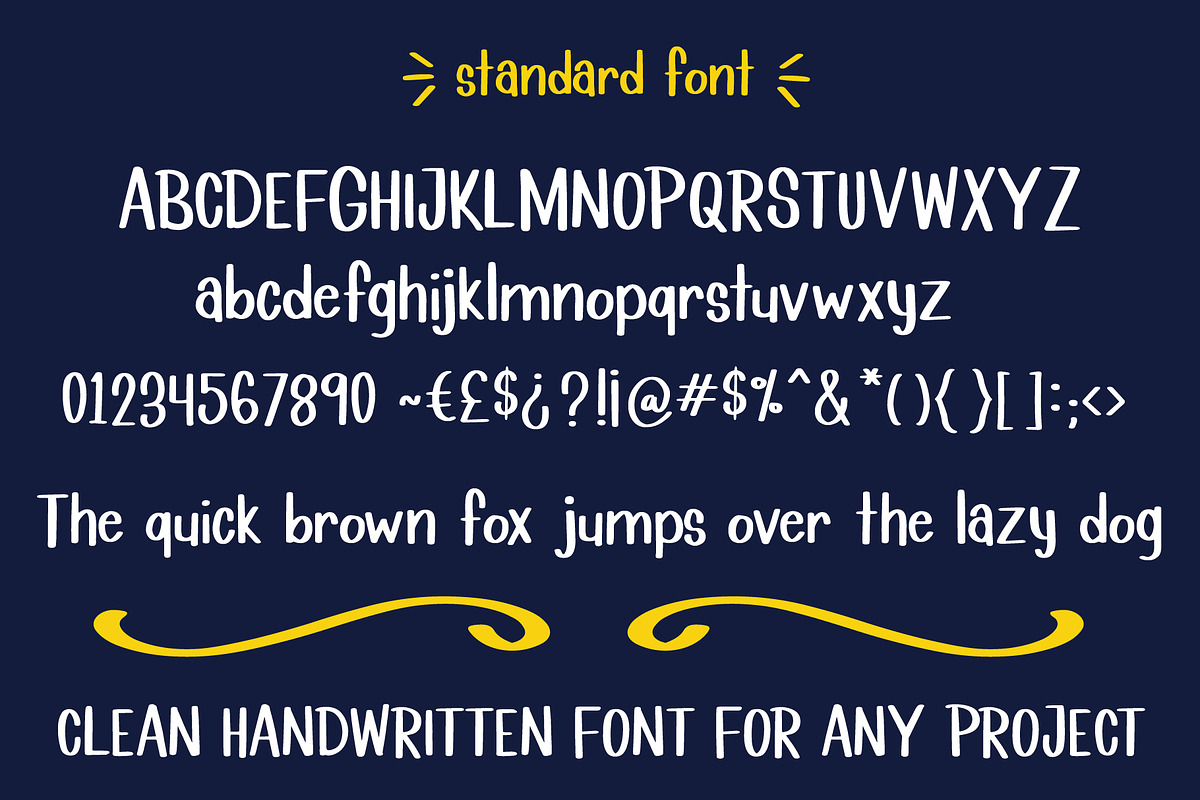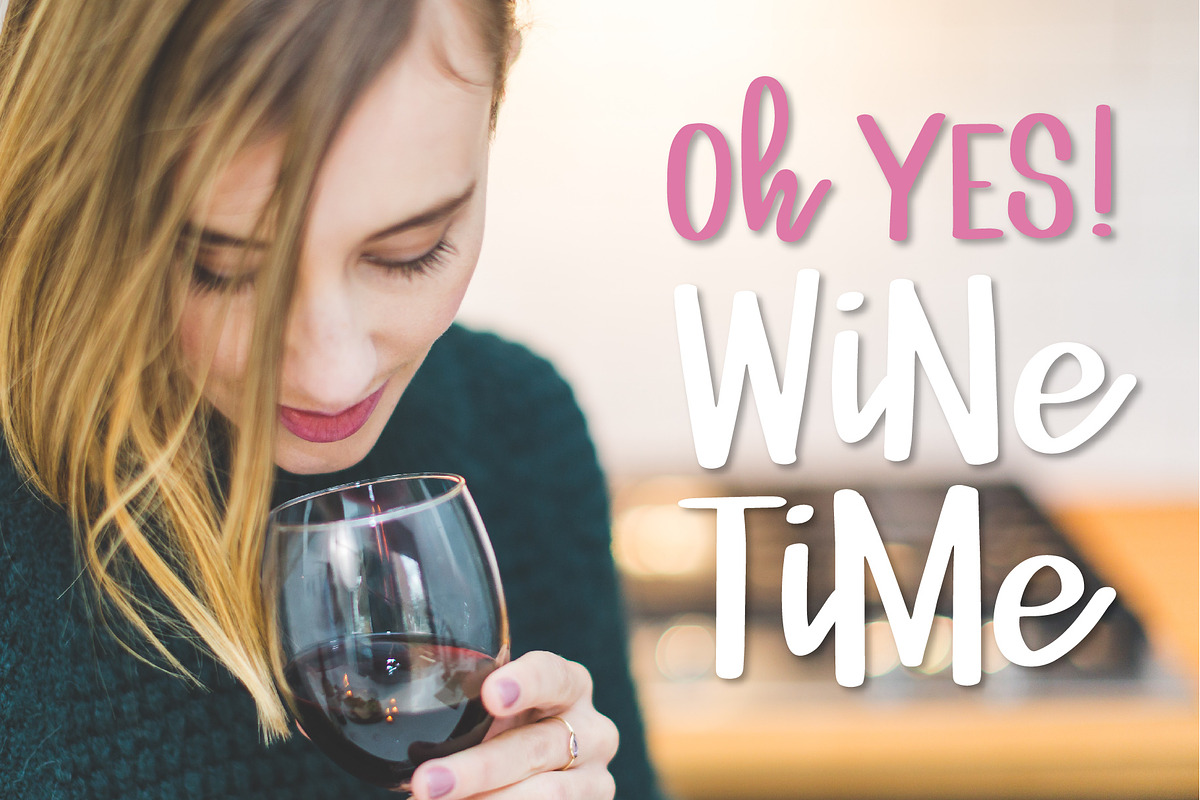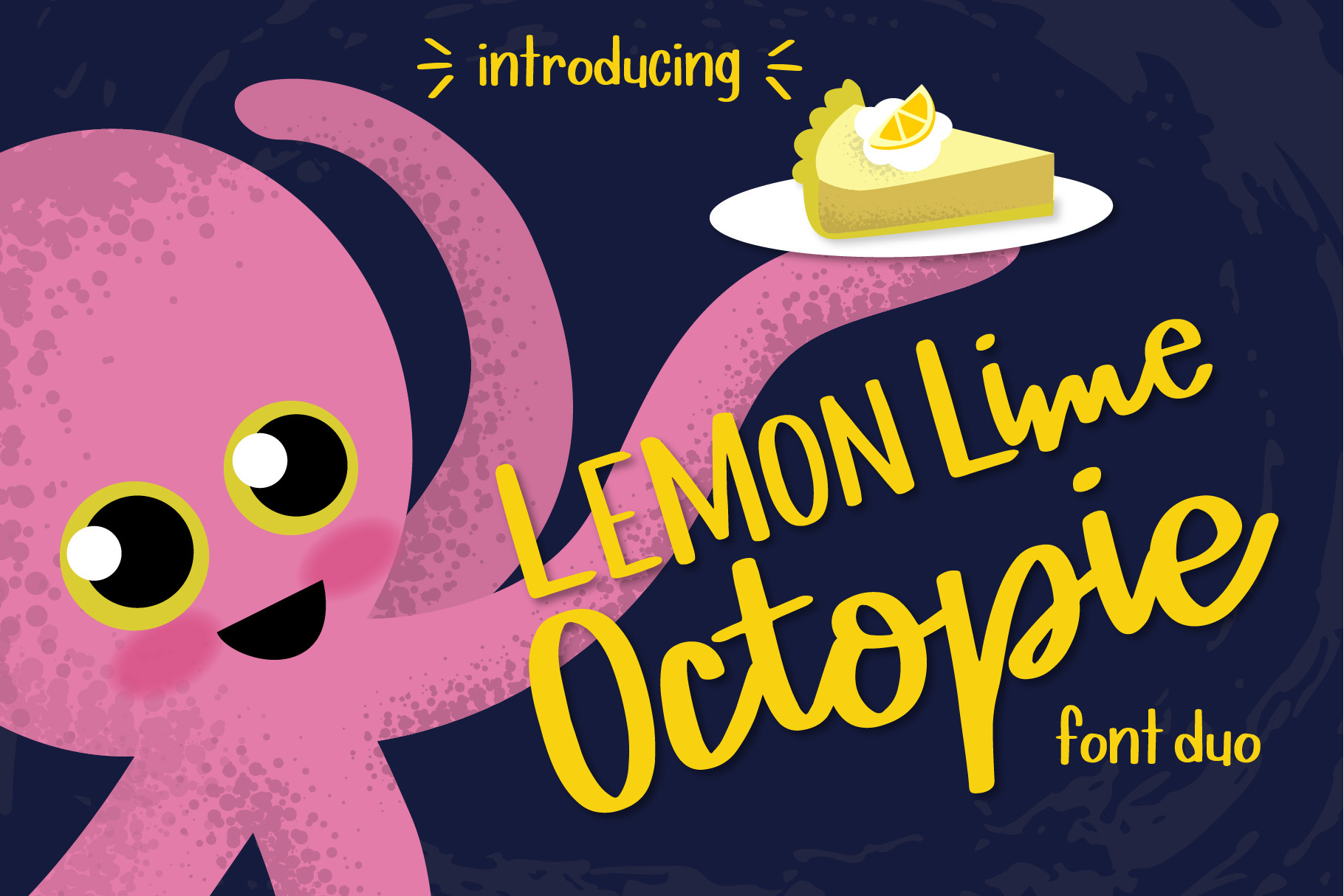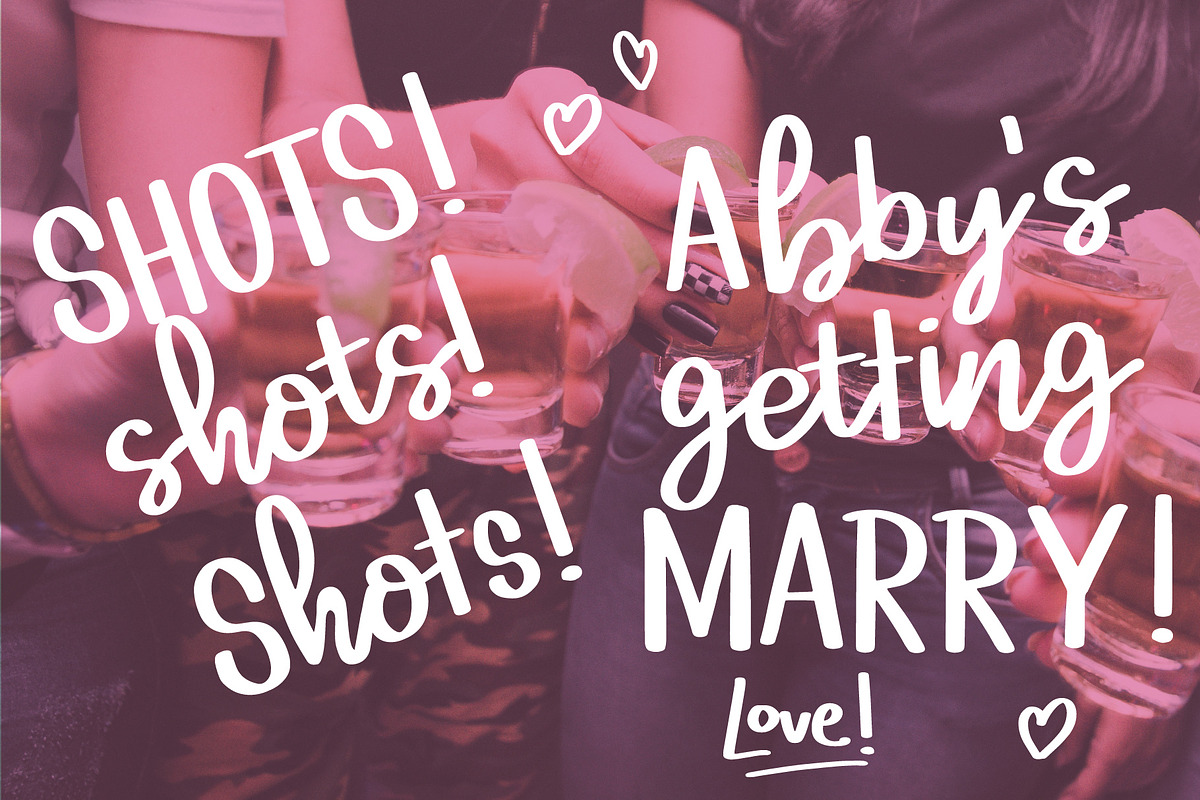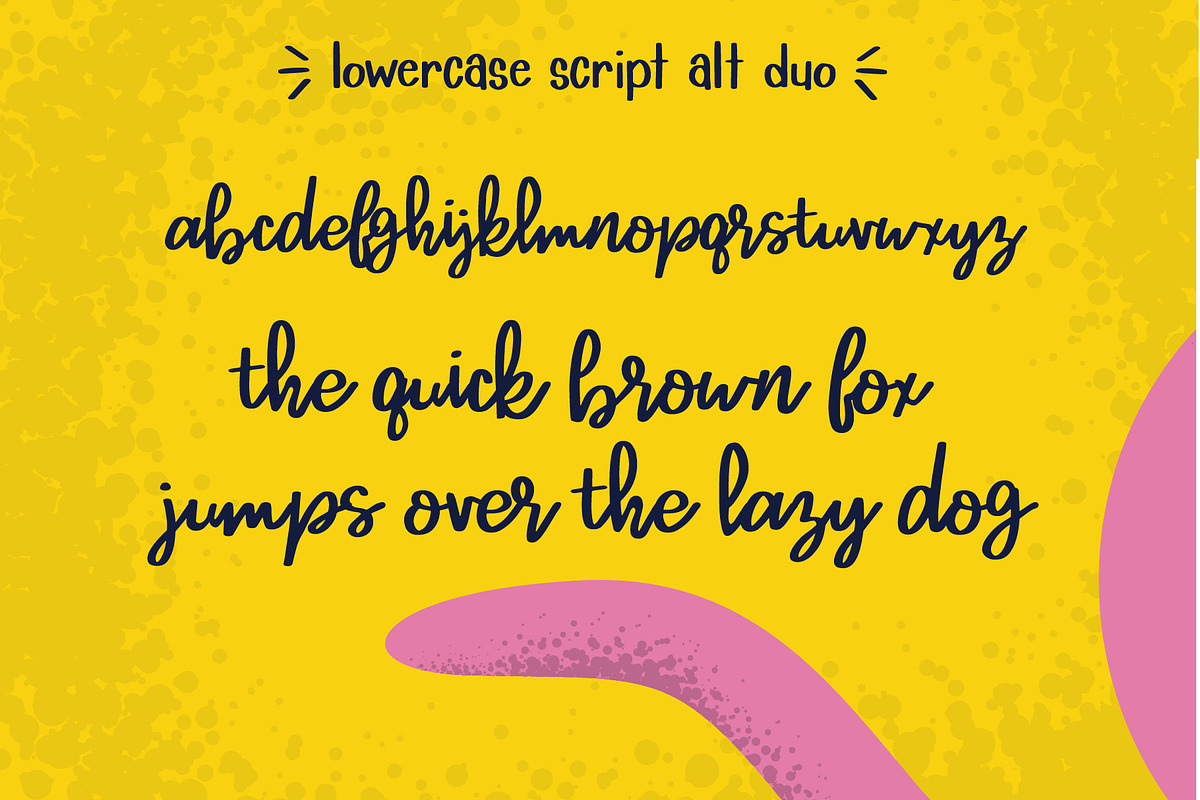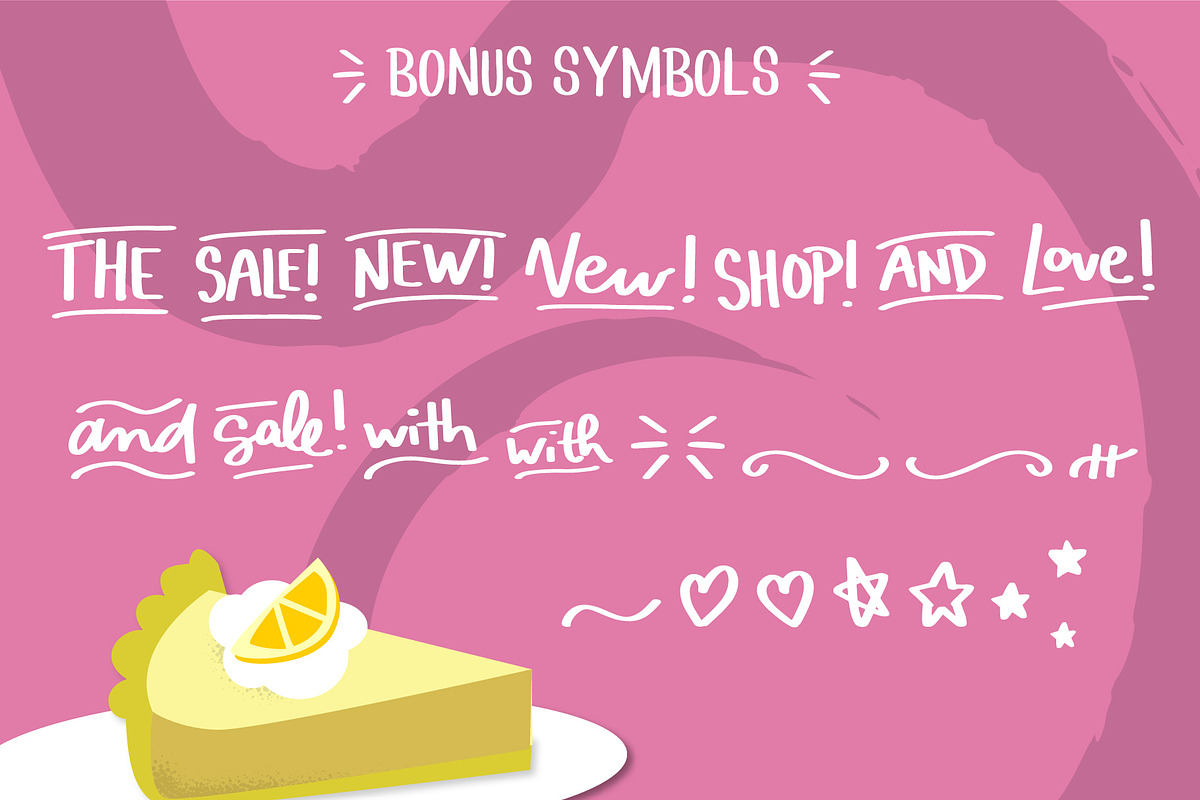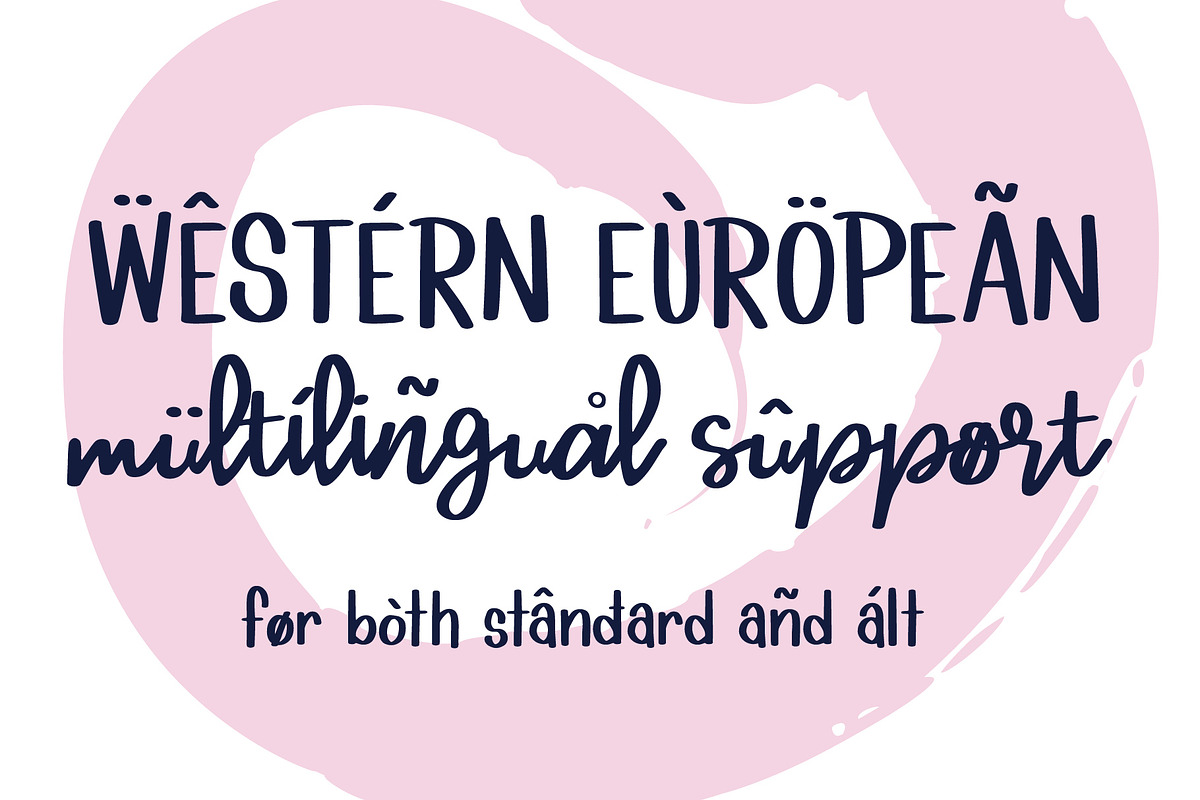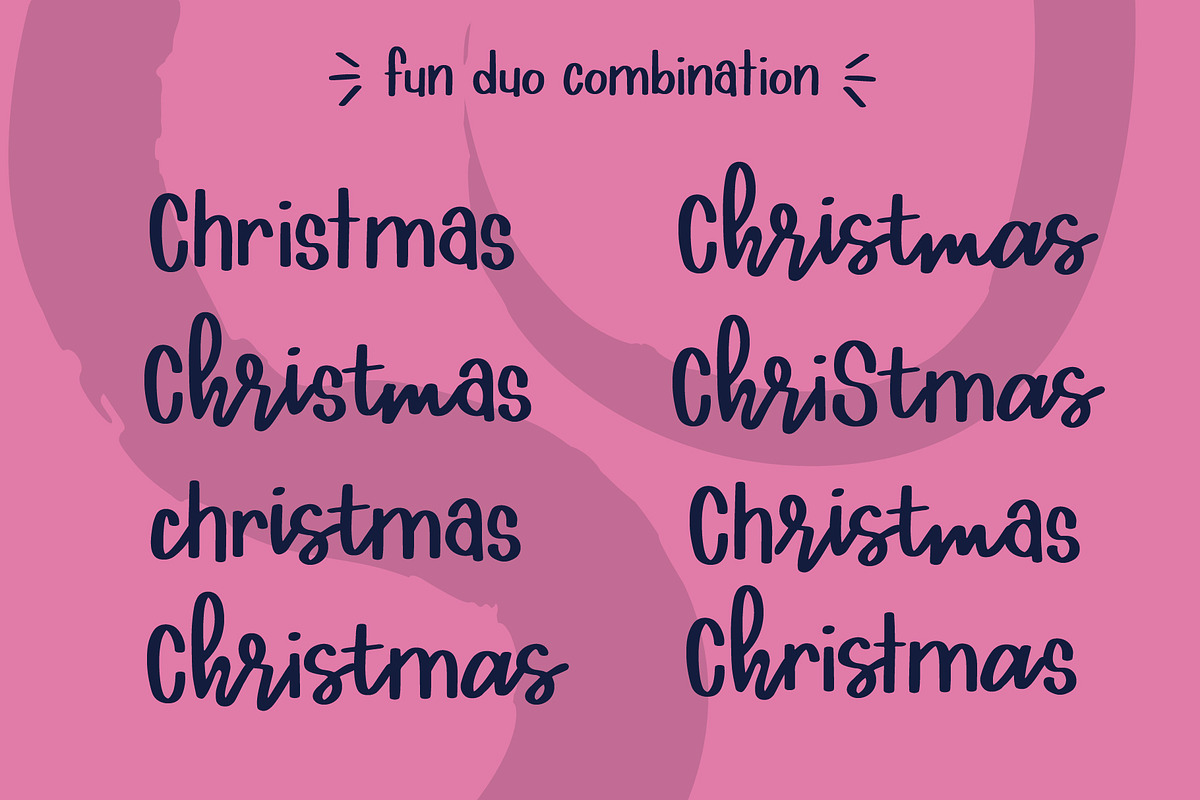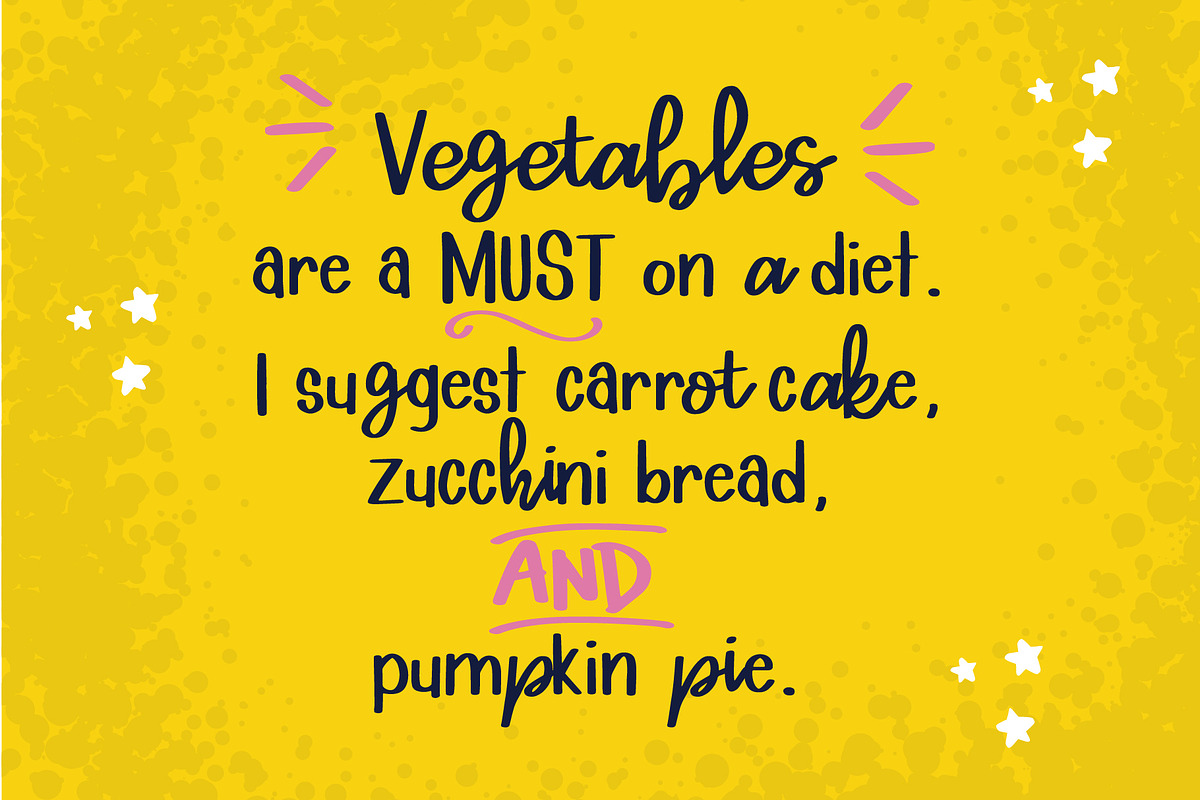
Lemon Lime Octopie Font Duo
Introducing, Lemon Lime Octopie. This font duo was inspired an octopus, and a slice of pie. haha I know right? I wanted something that was clean and useful, but also something fun. Enjoy!. This PUA font is perfect for professional designer, social media, or crafters.